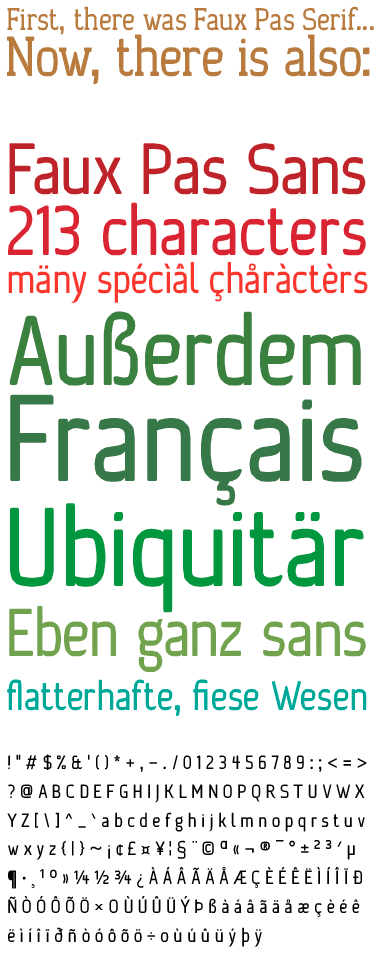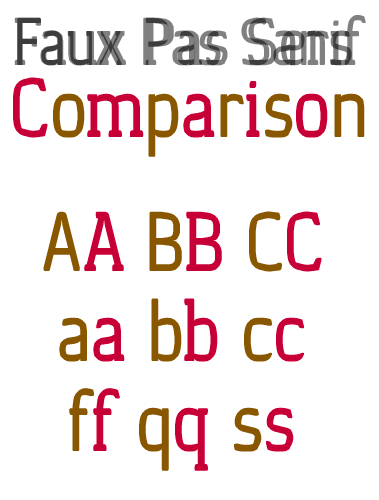
Err... hope i don't annoy but you forgot it even in your 926 chars font, in french we really need the e-in-the-o and its capital. Such common words meaning "heart, sister, beef, knot, egg", etc use it.
Thanks for the hint, AFT. Do you mean words like bœuf? The œ is part of the set "Latin Extended-A" if I'm not mistaken. I only did Latin and More Latin here, but I will add the character.
It's definitely included in Modular Blackout, though.
nice - nice - nice
Vielleicht sind J/j/y etwas zu sehr nach unten hin verjüngt?
I'm with beate. Goood job!
Yes, i always found strange this important character was in Latin Extended-A section when all the rest we need in french is actually in the More Latin Set. Because of this, most of the font designers don't do it, because very few fonts push their covering to the Extended-A. And what is even more annoying is that the e-in-the-a character is well featured in the More Latin section.
Clean and curvy :) 10/10
@AFT yeah, some of those character placements are weird. That's part of the reason why I go too far with some of my fonts. I figure it's better to have a lot of unnessessary glyphs than to be missing a crucial one :P
@laynecom: Nice font ;)
@AFT: I've included Œ and œ
@beate: Ich habe lange bei Faux Pas Serif drüber nachgedacht, habe mich aber dann doch dazu entschieden, die Spitzen zu lassen. Stärker und runder wäre wahrscheinlich konsistenter, so finde ich's aber interessanter. :-)
Great, J,j and y descenders make this into a sans with a difference! 10/10
Good sample.
You mad man!
Simple is always hardest to do.
Exceptional.
Great work...it's a beautiful family you have here. :)